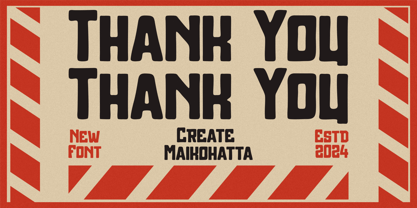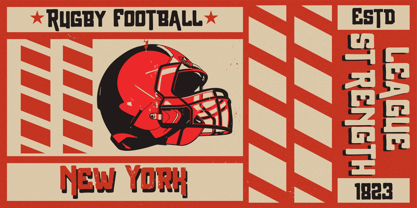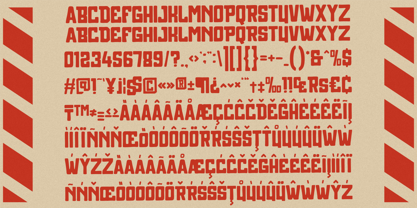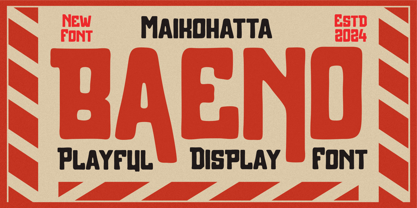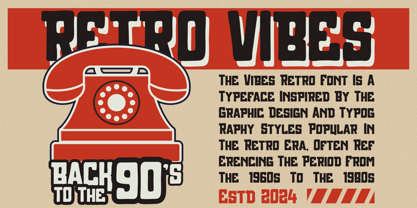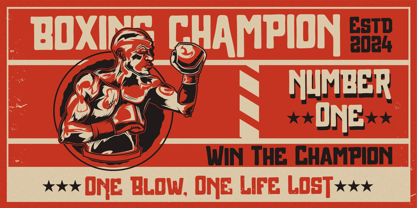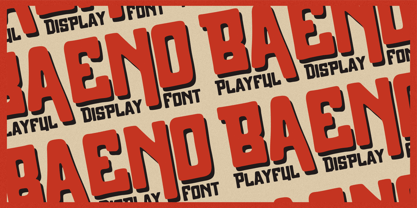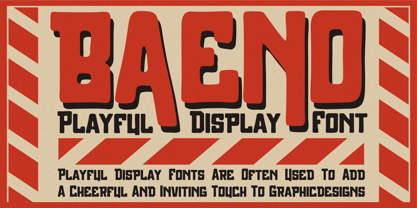
Baeno
by Maikohatta
The Baeno Font Family was designed by Gilang Ternadho and published by Maikohatta. Baeno contains 1 styles.
Introducing our new product Baeno - Playful Display Font
This font is characterized by reflecting joy, cheerfulness and a light atmosphere with a handwritten style often found in comics or cartoons.
This font is perfect for projects that want to highlight elements of playfulness and fun, such as poster designs, invitation cards, comics, or promotional materials aimed at a younger audience or those looking for a fun feel.